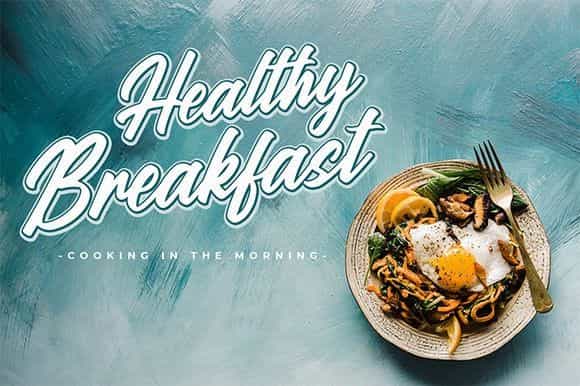
Discover Sandblack Script Font, part of the Brush Calligraphy Handwritten collection—a versatile and unique font perfect for adding a personal touch to your projects. Download it for free and enjoy crafting designs with style, from invitations to social media posts. This font is available exclusively for personal use, giving you the freedom to create without limits. Unlock your creativity with Sandblack Script Font today!
Sandblack is as informal and refined at the same time. It will avert all the design projects of different areas as diverse as branding, headings, wedding designs, invitations, signatures, logos and labels to the highest level.